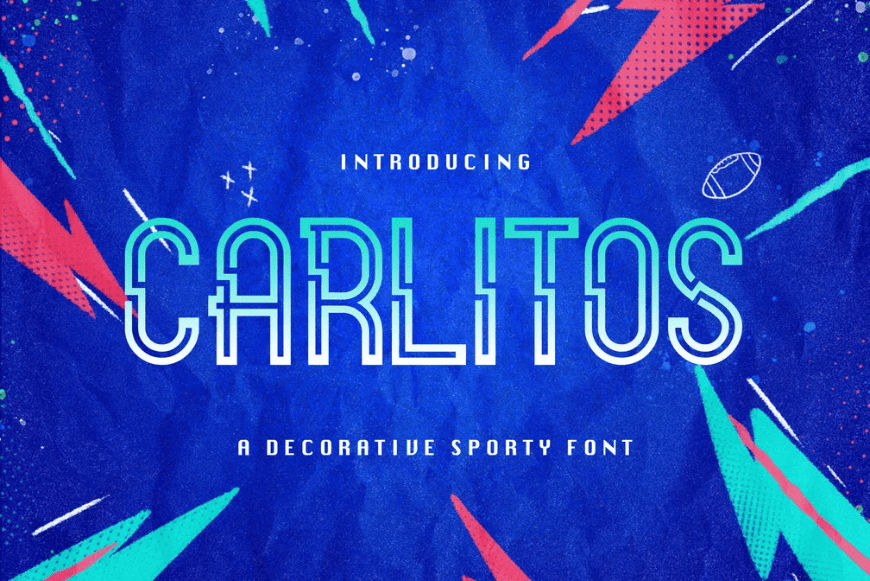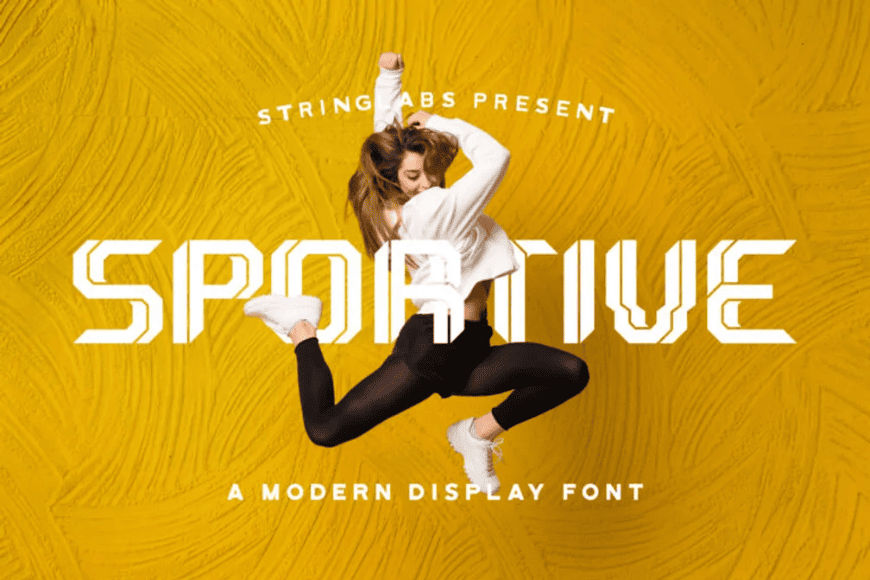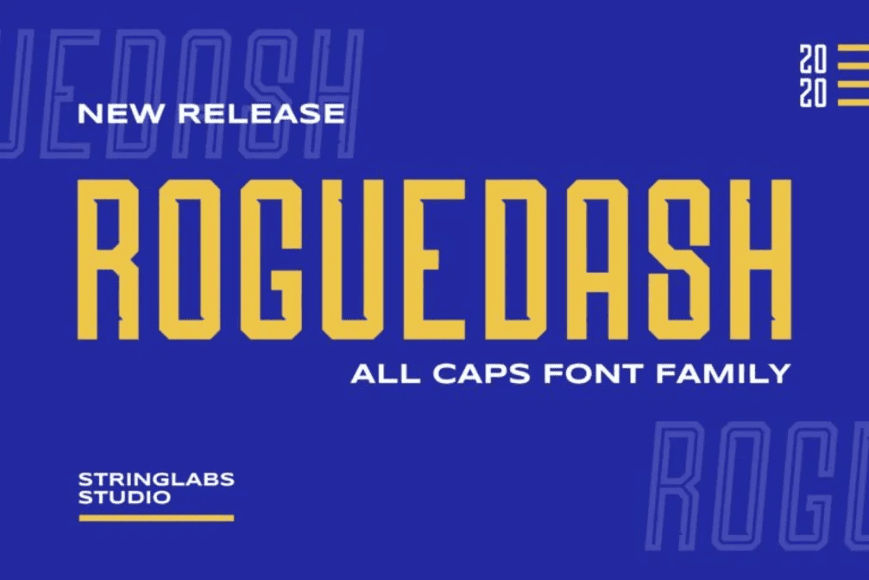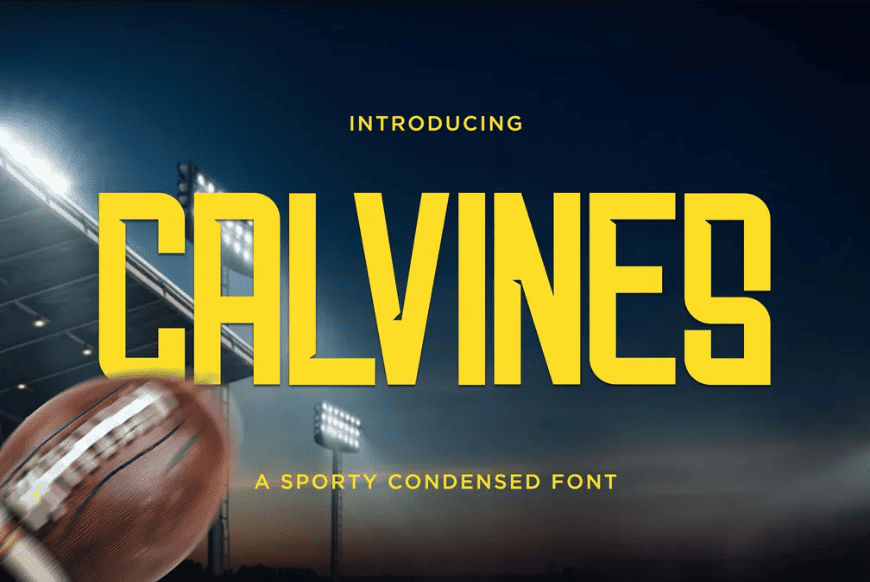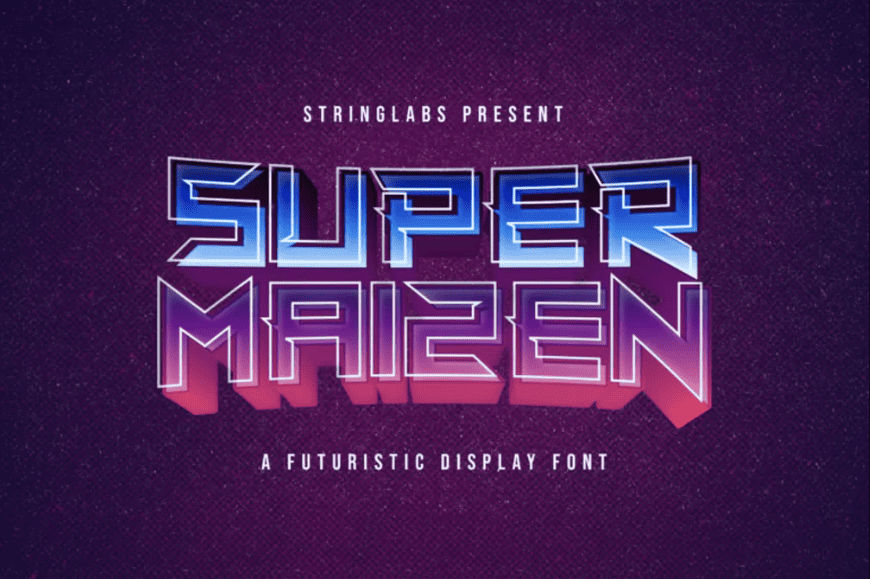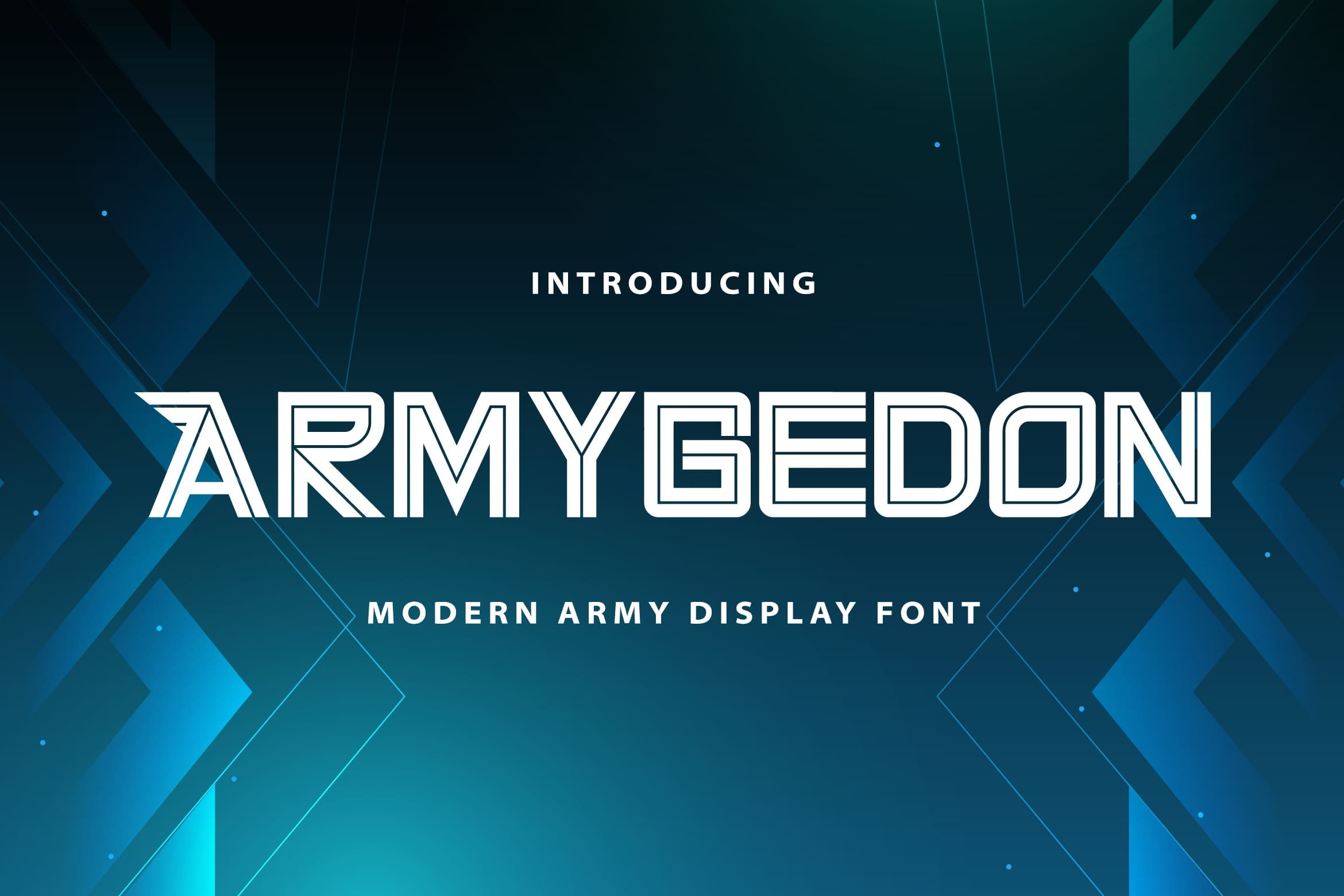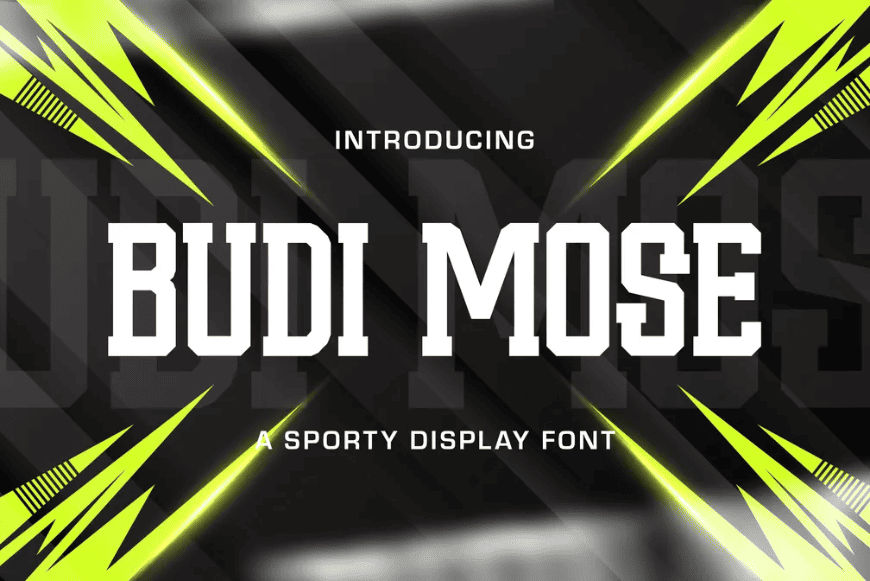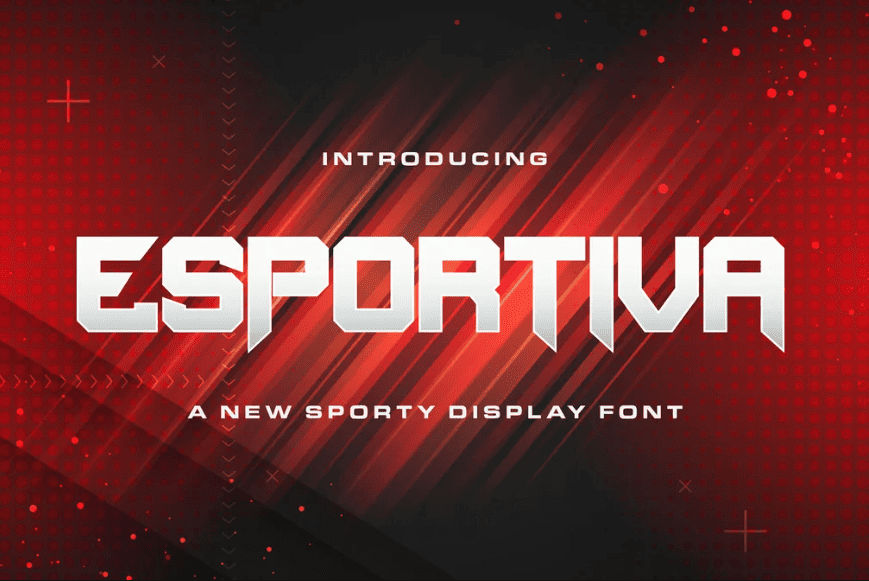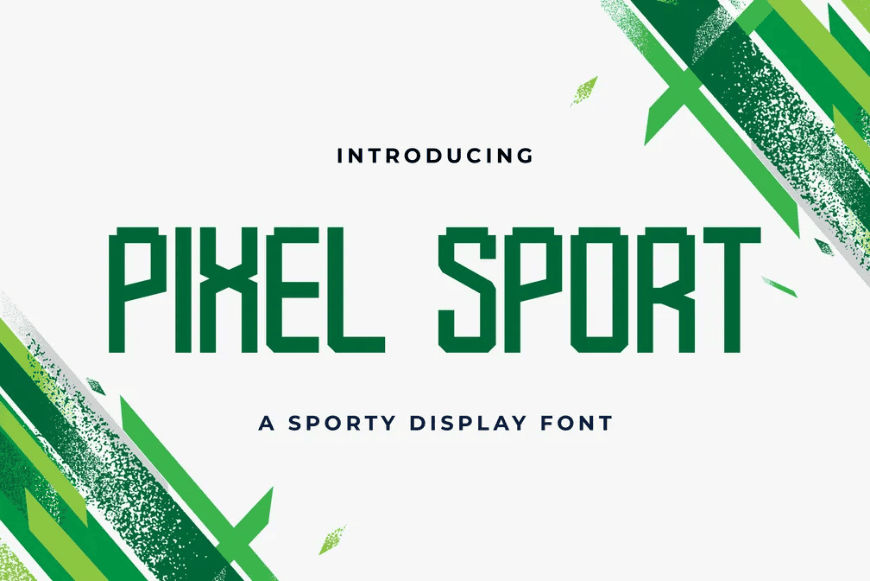
Sports Jersey Font: 20+Typefaces to Elevate Your Team
You might not notice it at first, but typography shapes how we perceive a team. The right sports jersey font can make players look faster, stronger, and far more intimidating at a glance.
Key Takeaways:
• Sports jersey design typically relies on thick, heavyweight typefaces to maximize legibility and strengthen team identity.
• Block-style fonts like Calvines, Budi Mose, and Cyber Display help create a bold, commanding presence.
• Striped fonts such as Armygedon, Sporticular, and Virgiano add distinctive character with a touch of vintage appeal.
• Sharp-edged fonts like Esportiva, Fun Games, and Super Maizen deliver a futuristic look, making them ideal for forward-thinking teams.
Choosing the Right Sports Jersey Font for Maximum Impact
Before diving into the list, it helps to understand what makes a sports jersey font truly effective. The right typeface does more than look good; it improves readability from a distance, strengthens team identity, and elevates the overall visual impact on the field. With that in mind, here are some of the best sports jersey fonts to consider.
1. Powery
Powery sports jersey font features bold, squared letterforms with tight spacing, engineered for maximum legibility at a distance. Its structured geometry ensures numbers remain readable during motion-heavy gameplay.
2. Calvines
Inspired by vintage typefaces, Calvines features subtle ink-cut details in the corners. This subtle detail also creates a 3D illusion, enhancing the tall, condensed letterforms. Calvines come with both cases and stylized numbers for your jersey.
3. Armygedon
When you design for a retro-futuristic style, Armygedon has to be your jersey font pick. This modern display font features all-caps letters with unique letterforms and stripped strokes.
4. Budi Mose
Budi Mose captures the high-octane energy of sporty stencils. Its heavy weight and squared ends make it among the best sports fonts for teams wanting to look strong and aggressive.
5. Esportiva
Esportiva features modular construction, in which each letterform is composed of repeating geometric shapes. The consistency enhances brand cohesion, especially across different jersey sizes and merchandise formats.
6. Pixel Sport
With the classic look of a jersey font, Pixel Sport adds pixel cuts at the corners. Additionally, its slight diagonal angles display a unique, modern touch, resulting in an interesting typeface.
7. Rusdy Ibra
Featuring aggressive horizontal stress and sleek cutouts, the Rusdy Ibra sports jersey font brings a modern, collegiate vibe to the field. Its curvy visual ensures maximum impact and movement for any team brand.
8. Sporticular
Sporticular uses maze-like visuals, giving the illusion of agility in a technically bold font. With slightly irregular edges, it adds character and uniqueness for teams aiming to break away from overly generic athletic typography.
9. Bugar Sport
Bugar Sport is a tall, sporty font with swift details. This font combines sharp angles and rounded edges. This dynamic combo makes it a versatile font for sports jerseys.
10. Carlitos
Carlitos is a vibrant sports jersey font featuring a unique inline decorative style. Its double-line structure and lightning-sharp geometric cuts create an electric, high-energy aesthetic perfect for modern team branding.
11. Demokrasi
Demokrasi is a striking multi-line display font, offering an intricate geometric structure. This font sport choice creates an electric, hypnotic energy, ideal for cutting-edge digital branding and high-speed team logos.
12. Fun Games
Fun Games is a futuristic font with sharp, exaggerated corners. This font is the perfect choice to bring a high-octane, yet fun aura. Ultimately, aiming for more fun than intimidation.
13. Piemonte
Piemonte is a tall, condensed sans-serif that brings a sophisticated retro flair to the game. It is a fantastic font for jersey designs seeking a clean, classic, and high-end aesthetic.
14. Sportive
Bold and unconventional, Sportive is the ultimate jersey font for teams that play with creativity. Its sharp, multi-leveled structure provides a futuristic visual depth that looks fast, aggressive, and undeniably fun.
15. Roguedash
Roguedash is a stylish sans-serif font with sporty vibes. This all-caps font can be styled between 4 options: solid, lined, or italic for both textures. With this, you can bring a cohesive concept.